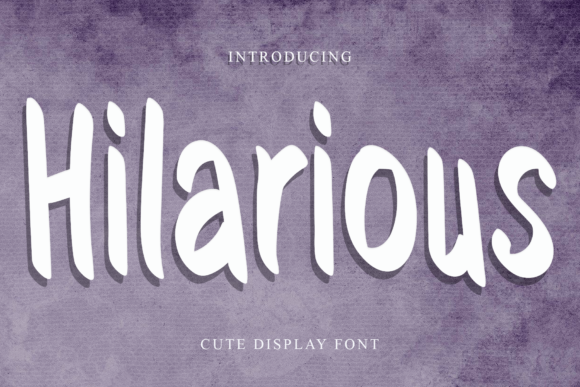
Introducing Hilarious Font - The Epitome of Exuberance and Playfulness for Tween Monograms
In the realm of typography, there exists a font that exudes an infectious energy, a font that captures the essence of youthfulness and lightheartedness - Hilarious Font. This display font, meticulously crafted by the talented dazzlinggleam, is an extraordinary creation that embodies the boundless spirit of tweenhood. With its bold and carefree strokes, Hilarious Font dances across the page, leaving a trail of joy and laughter in its wake.
Picture this: a tween girl, brimming with personality and charm, seeks to create a monogram that reflects her vibrant spirit. She yearns for a font that speaks to her individuality, a font that captures the essence of her playful nature. Enter Hilarious Font, the perfect companion for her creative endeavor. With its thick, playful letters, Hilarious Font leaps off the page, demanding attention and admiration.
The beauty of Hilarious Font lies in its versatility. It effortlessly complements a wide array of projects, from personalized stationery and greeting cards to social media posts and website designs. Its unique style adds a touch of whimsy and delight to any creation, transforming the ordinary into the extraordinary.
Moreover, Hilarious Font possesses an inherent charm that resonates with tweens. Its bold and confident strokes embody the self-assured nature of this remarkable age group. Tweens, known for their boundless energy and relentless pursuit of self-expression, find solace and empowerment in Hilarious Font. It becomes an extension of their vibrant personalities, a tool with which they can proclaim their individuality to the world.
Hilarious Font is more than just a font; it's an experience. It's a journey into the realm of joy and laughter, a celebration of the unique and extraordinary spirit of tweenhood. Its thick, playful letters inspire creativity and imagination, encouraging tweens to express themselves authentically and fearlessly.
So, step into the world of Hilarious Font and let your imagination run wild. Create monograms that radiate with personality, design projects that exude charm and playfulness, and embark on a creative adventure that will leave you feeling exhilarated and inspired.